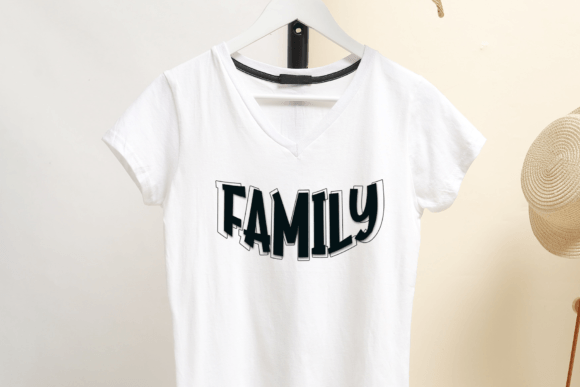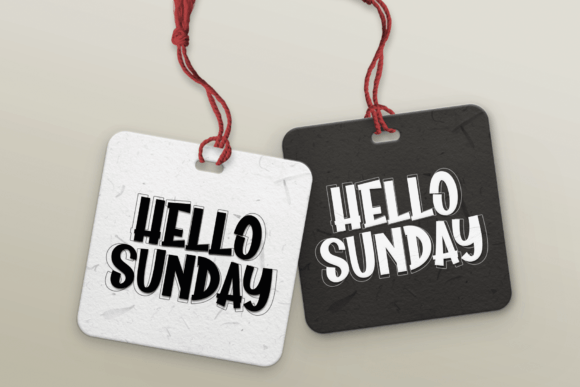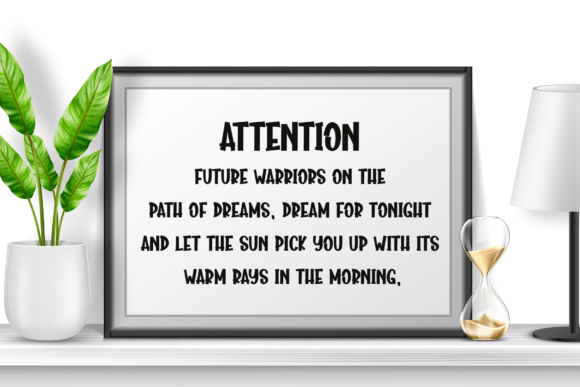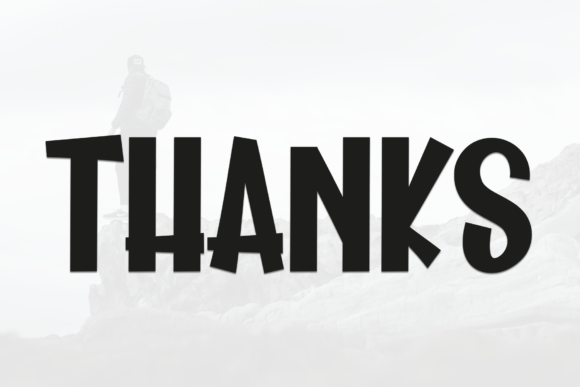
Discover the Perfect Handwritten Companion
There’s nothing quite like the thrill of brainstorming a new design project, with ideas pouring in from every direction. You envision the perfect combination of colors, textures, and typography – the ultimate creative high. But, what truly brings your concept to life is the right font, one that not only reflects your vision but also elevates it to new heights.
Enter the Climber Font, a stunning handwritten font that exudes elegance and sophistication. With its unique, timeless style, this font is perfect for designers seeking to add a personal touch to their projects. Its versatility makes it suitable for a wide range of applications, from branding and marketing materials to digital art and social media graphics.
Whether you’re a seasoned designer or just starting out, the Climber Font is a valuable addition to your toolkit. Its beauty and distinctiveness make it a standout choice for creating memorable designs that leave a lasting impression.
Climber Font Key Features
- Font Family: Climber Font is a unique, hand-drawn font designed for various applications.
- Unique Characteristics: Climber Font features a distinctive, hand-drawn aesthetic with varying line widths, giving it a natural and organic feel.
- Font Style: The font family includes various styles, including regular, bold, italic, and bold italic, offering versatility in design.
Climber Font Review
I recently had the chance to work with the Climber Font, and I must say it’s a unique and intriguing typeface. Here are some of its standout features:
- ✨ Customizable: The Climber Font offers a range of customization options, allowing designers to adjust the font’s weight, size, and spacing to suit their specific needs.
- ✨ Versatile: This font is suitable for a variety of applications, from web design to print materials, and can be used to convey a sense of adventure and excitement.
- ✨ Modern aesthetic: The Climber Font boasts a sleek, modern design that’s sure to catch the eye of anyone who sees it.
- ⚠️ Limited language support: While the font is well-suited for English and other Latin-based languages, it may not be as effective for languages that use non-Latin scripts.
- ⚠️ Overuse: The font’s adventurous aesthetic can be overpowering if used too extensively, so be sure to balance it with other design elements.
Overall, I’m impressed with the Climber Font’s potential and versatility. With careful use and consideration, it can be a valuable addition to any designer’s toolkit.
Tips for Getting the Most Out of Climber Font
Use Climber Font to add a unique touch to your designs, especially for outdoor or adventure-themed projects. Experiment with different font sizes and colors to create visual interest.
Climber Font is ideal for use in outdoor-themed projects, such as:
Adventure travel websites
Outdoor apparel branding
Mountain or park signage
Alternatives to Climber Font
1. Rockwell Font
Rockwell Font is a serif font with a sturdy and solid appearance, making it suitable for body text, titles, and headings. It is often used in formal and professional settings.
Compared to Climber Font, Rockwell Font is more formal and less adventurous. Climber Font has a more energetic feel, while Rockwell Font is more traditional and reliable.
2. Playfair Display Font
Playfair Display Font is a luxurious and elegant serif font, ideal for titles, headings, and quotes. It is often used in high-end branding, magazines, and luxury products.
Compared to Climber Font, Playfair Display Font is more refined and sophisticated. While Climber Font has a playful and adventurous feel, Playfair Display Font is more opulent and refined.
3. Arial Black Font
Arial Black Font is a sans-serif font with a bold and modern appearance, making it suitable for titles, headings, and body text. It is often used in digital media, advertisements, and websites.